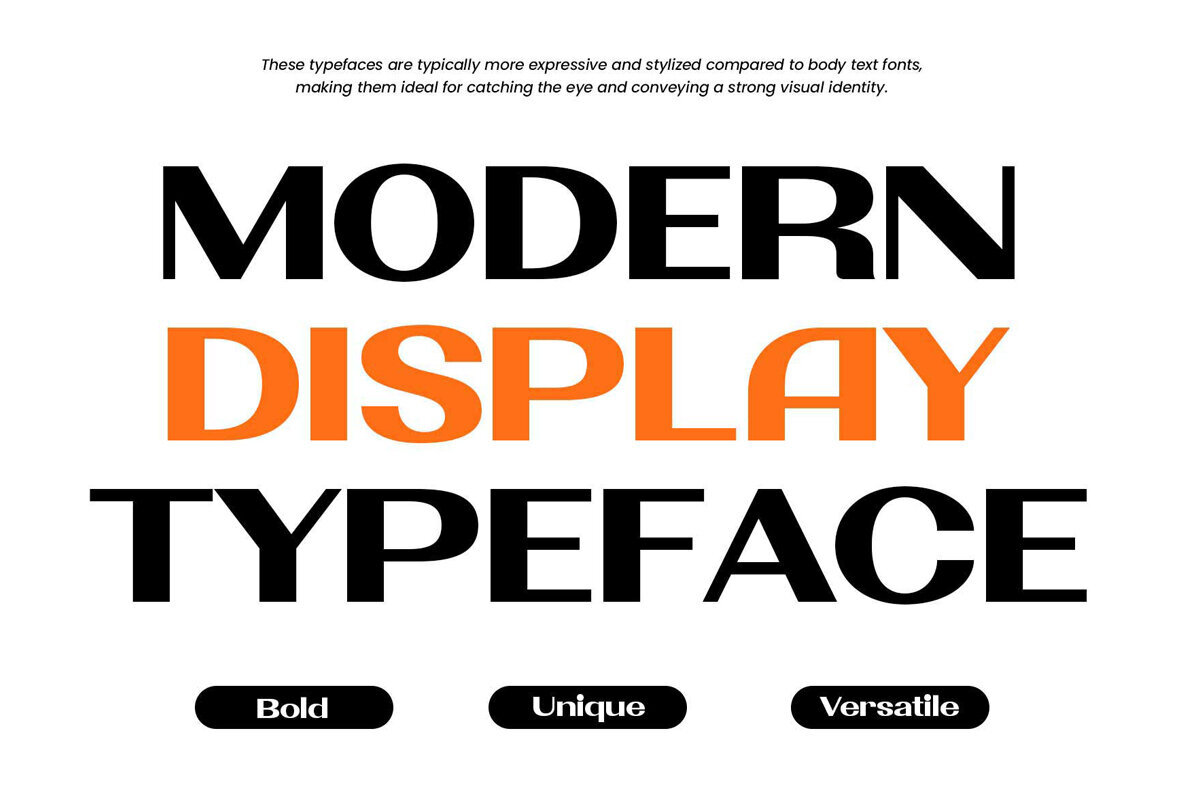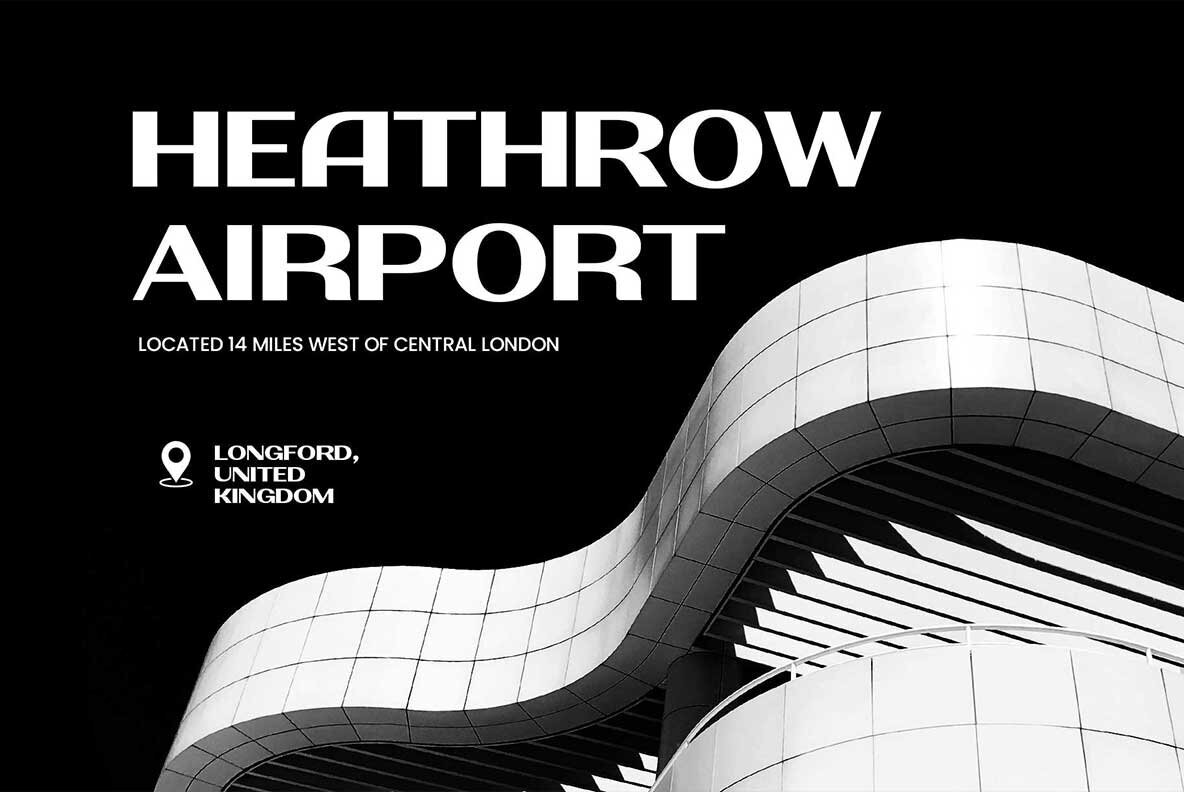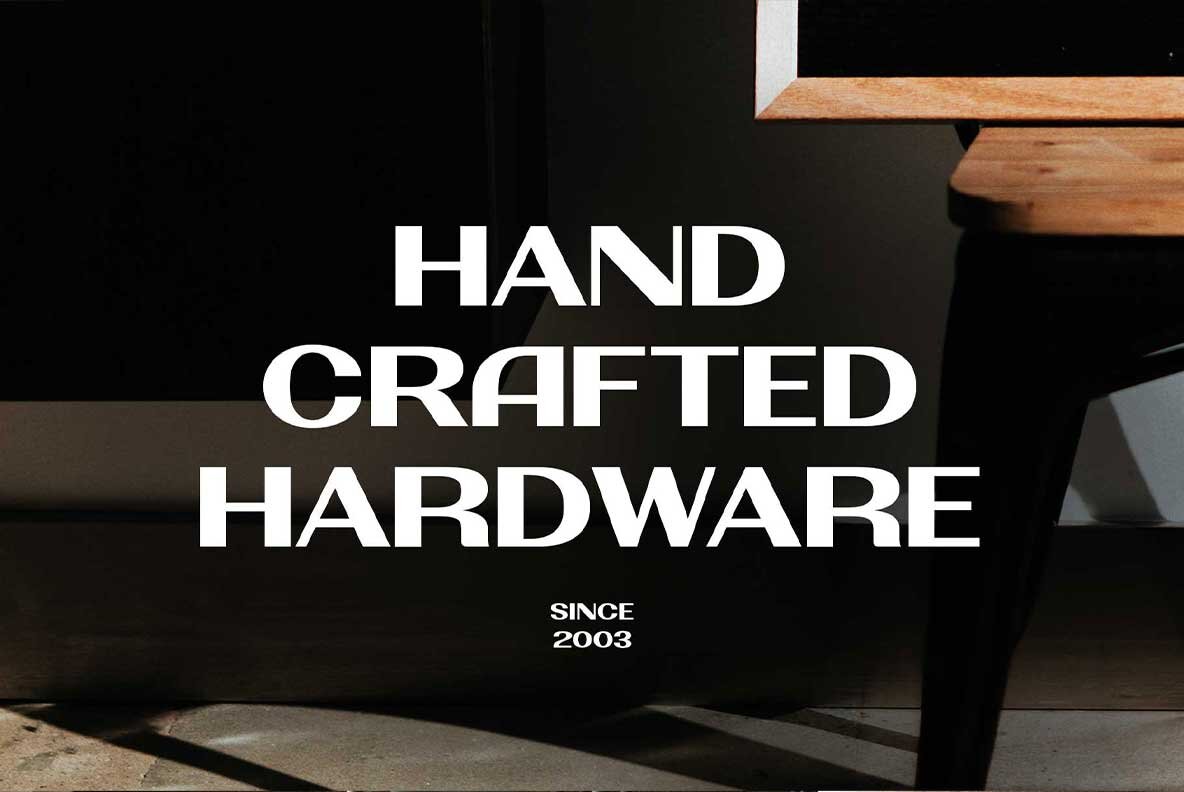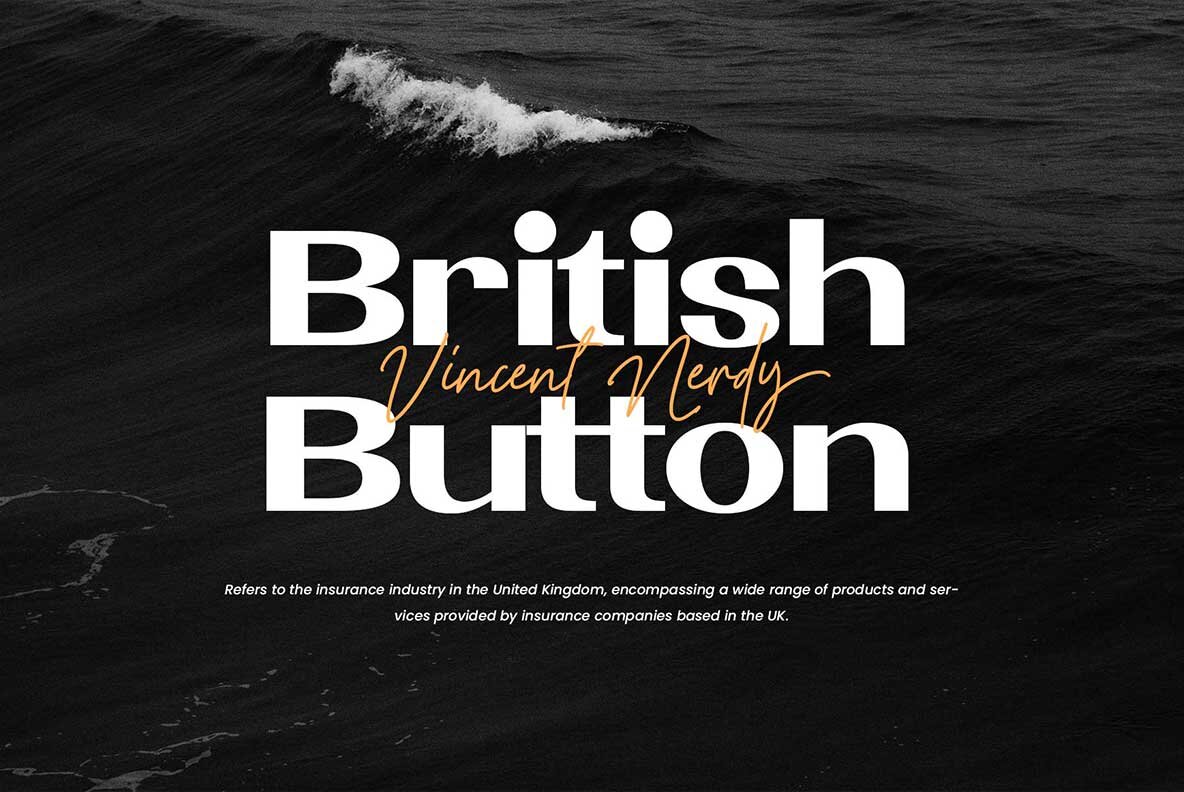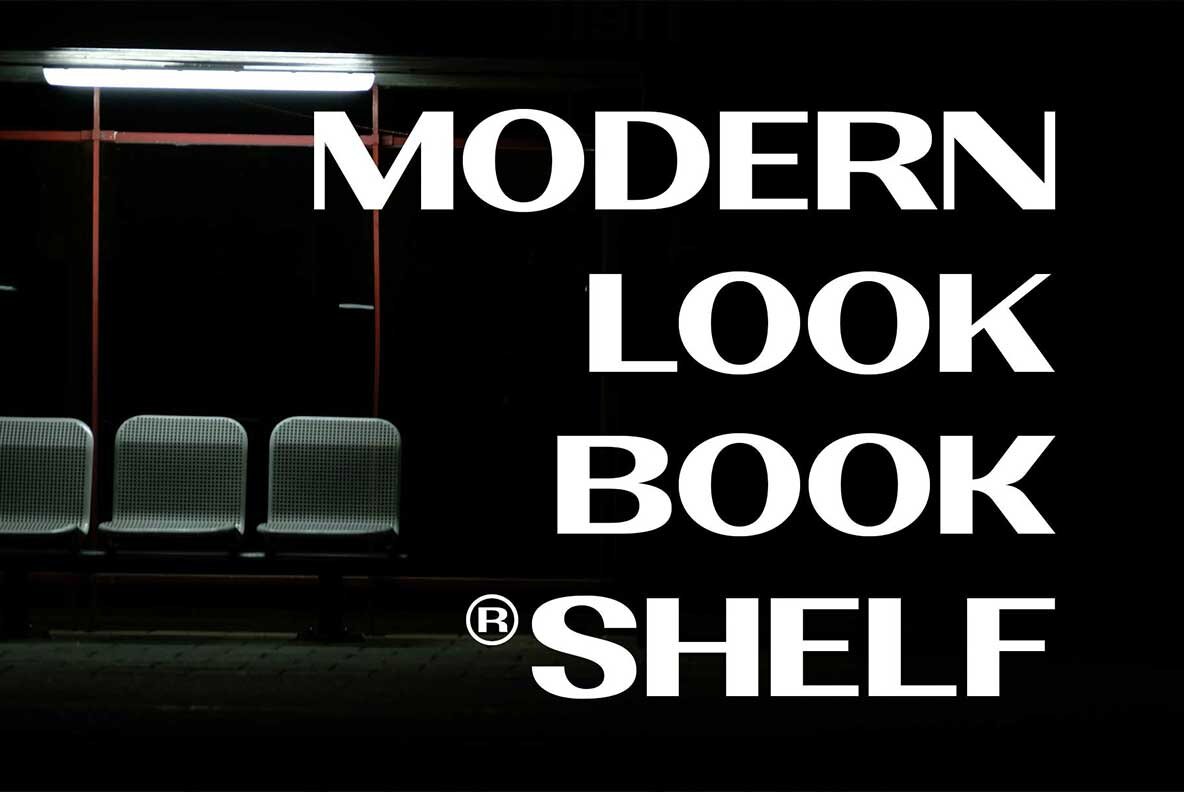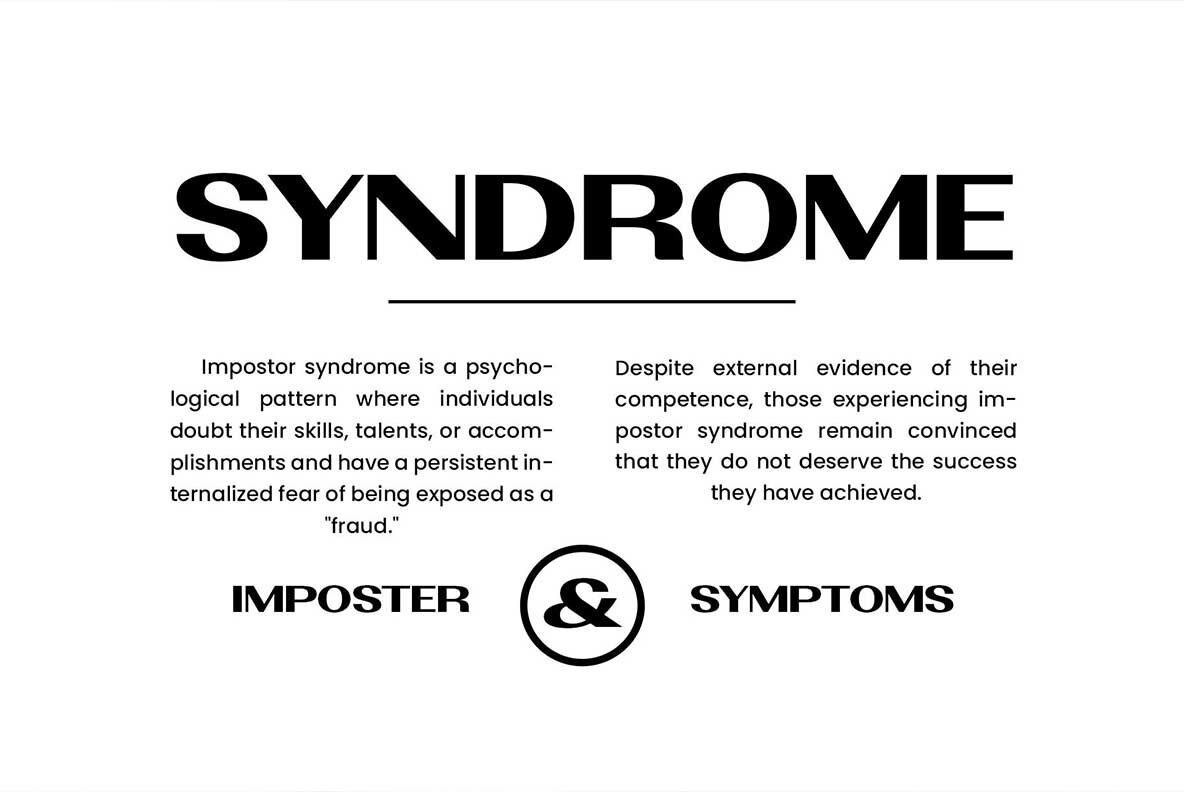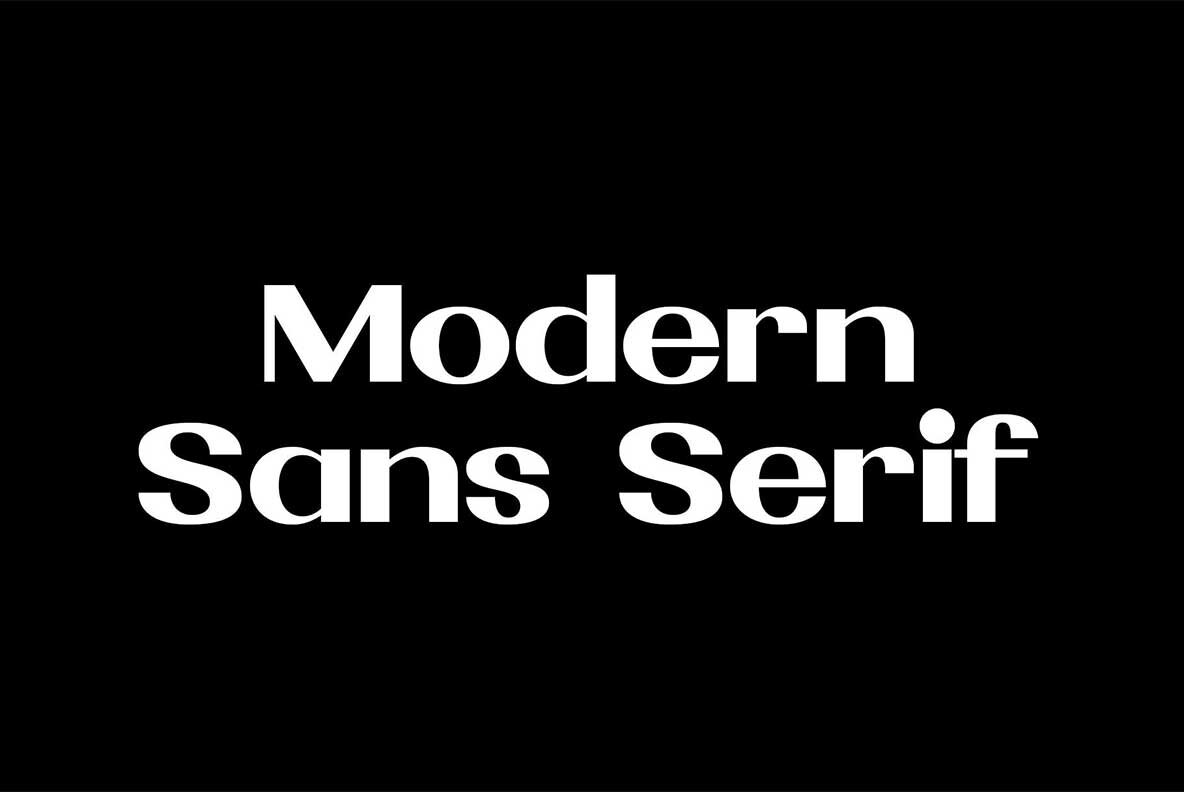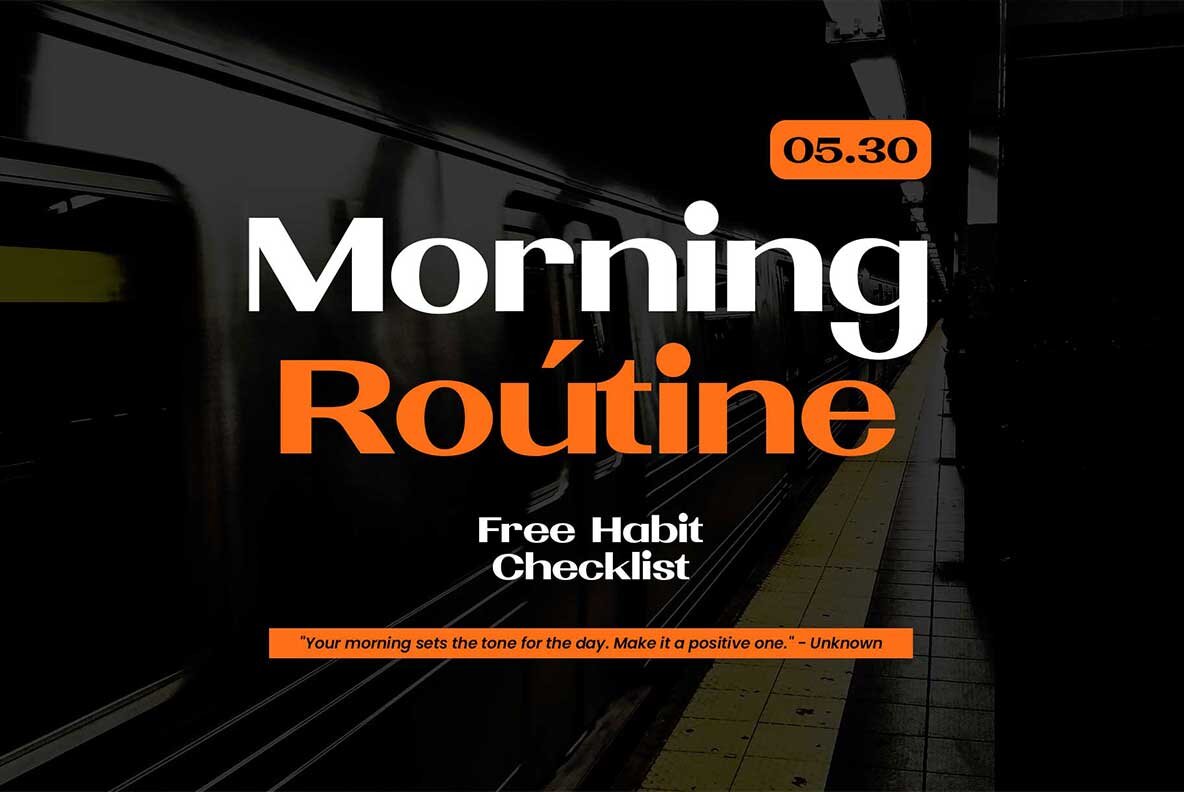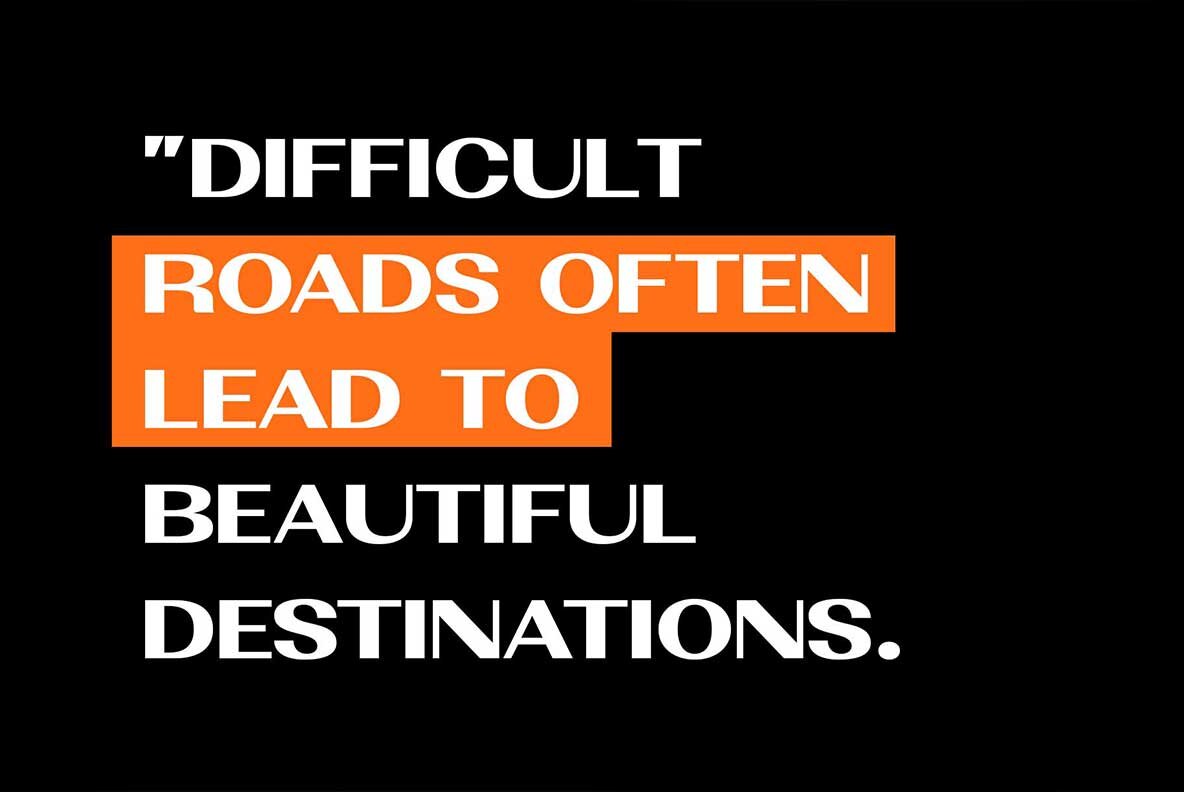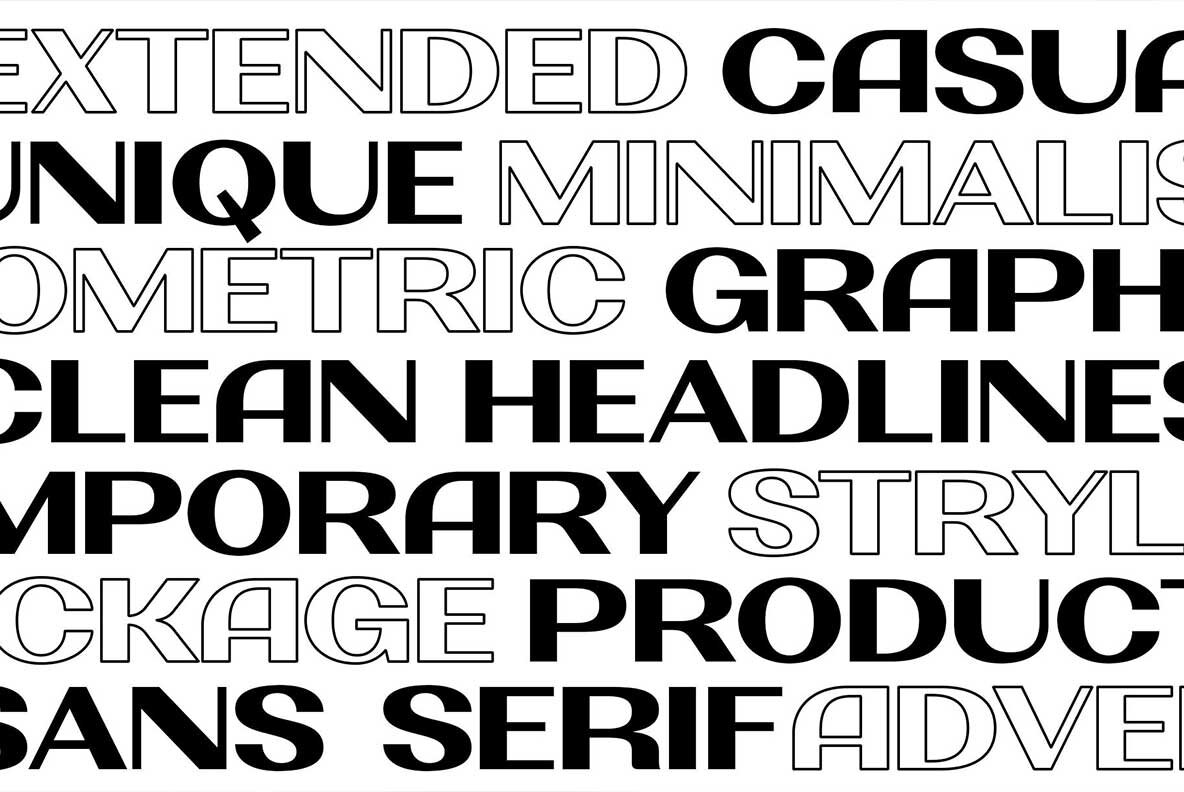
Palmont Font
Palmont Regular
Palmont is a modern vintage serif font characterized by its wide width and geometric shapes, giving it a distinct futuristic feel. Its bold weight provides a strong yet elegant look, making it perfect for display purposes in large sizes. Ideal for branding, logos, logotypes, editorials, magazines, posters, and fashion, this versatile typeface can easily be combined with others to create playful and dynamic typographic designs.
Palmont features a comprehensive set of characters, including uppercase and lowercase letters, numbers, symbols, punctuation, and stylistic alternates. It also offers multilingual support, catering to a wide range of design needs. Whether you're aiming for a sophisticated logo or an eye-catching magazine cover, Palmont delivers a striking and adaptable typographic solution.